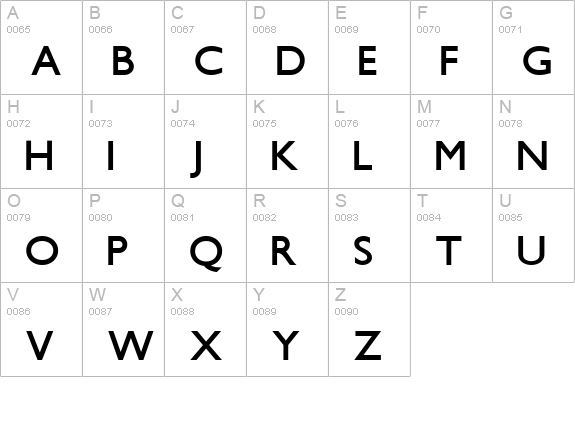
Underground NF Font Details
The Underground NF font is a versatile and edgy typeface that exudes a rebellious and underground aesthetic. With its bold and angular design, this font is perfect for creating eye-catching headlines, posters, and branding materials that demand attention. The sharp lines and unique detailing of the characters give off a modern and urban vibe, making it ideal for projects that aim to stand out from the crowd. What's even better is that the Underground NF font is completely free to download at FontsMarket.com! This means you can add this striking font to your collection without breaking the bank. Whether you're a designer looking to add some edge to your work or a creative individual wanting to experiment with a new style, the Underground NF font is a must-have in your font library. Download it today and start creating incredible designs that make a statement.